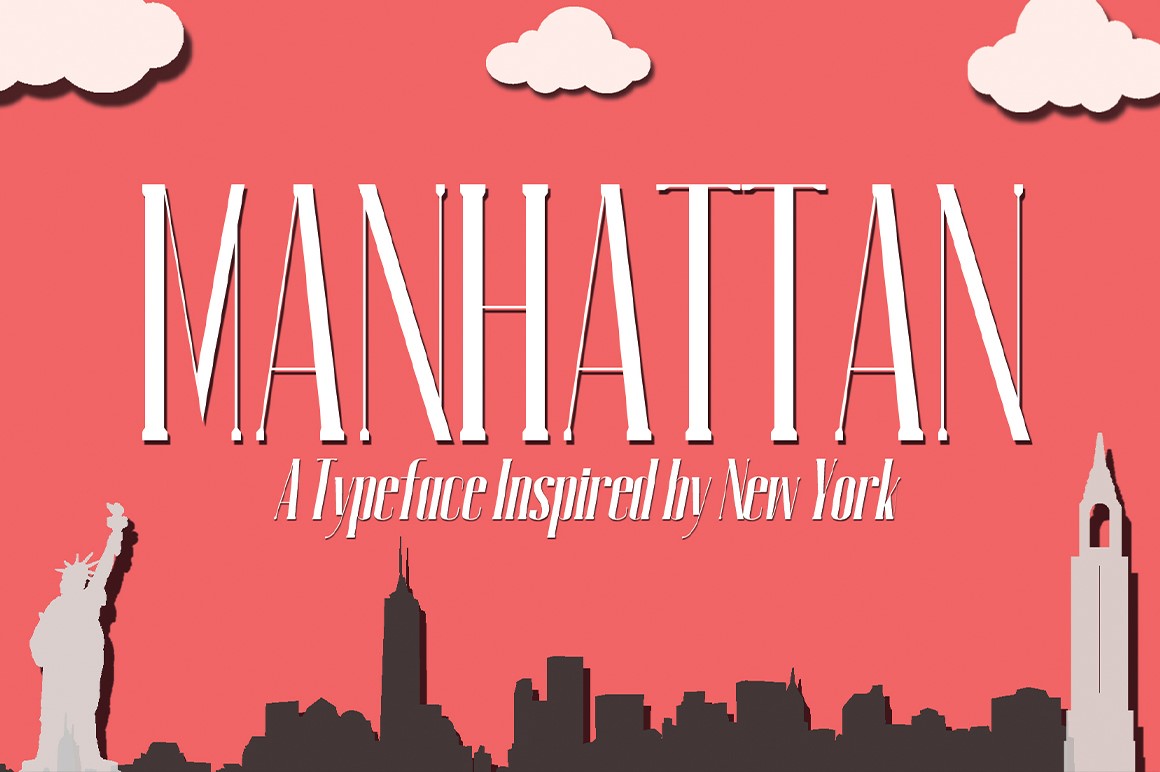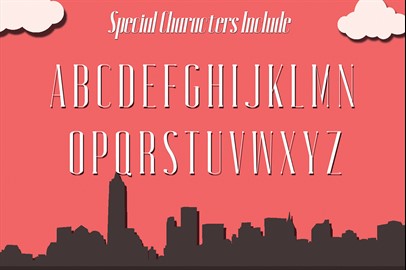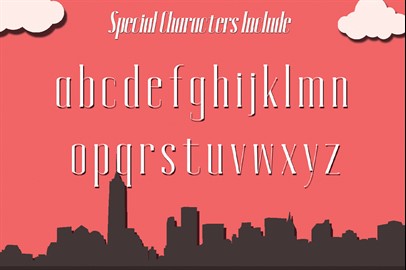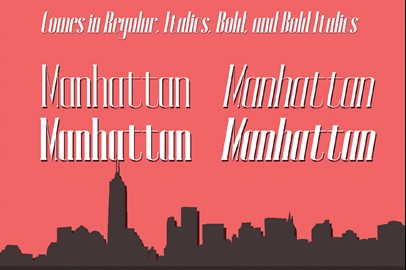
MANHATTAN: A New York Typeface
This is a beautiful and sophisticated typeface. It's a careful collaboration between beauty, and function. Confidently playing with extremes of thick strokes and whisper-thin curves which plant this typeface firmly in modern-day design.
Special character included.